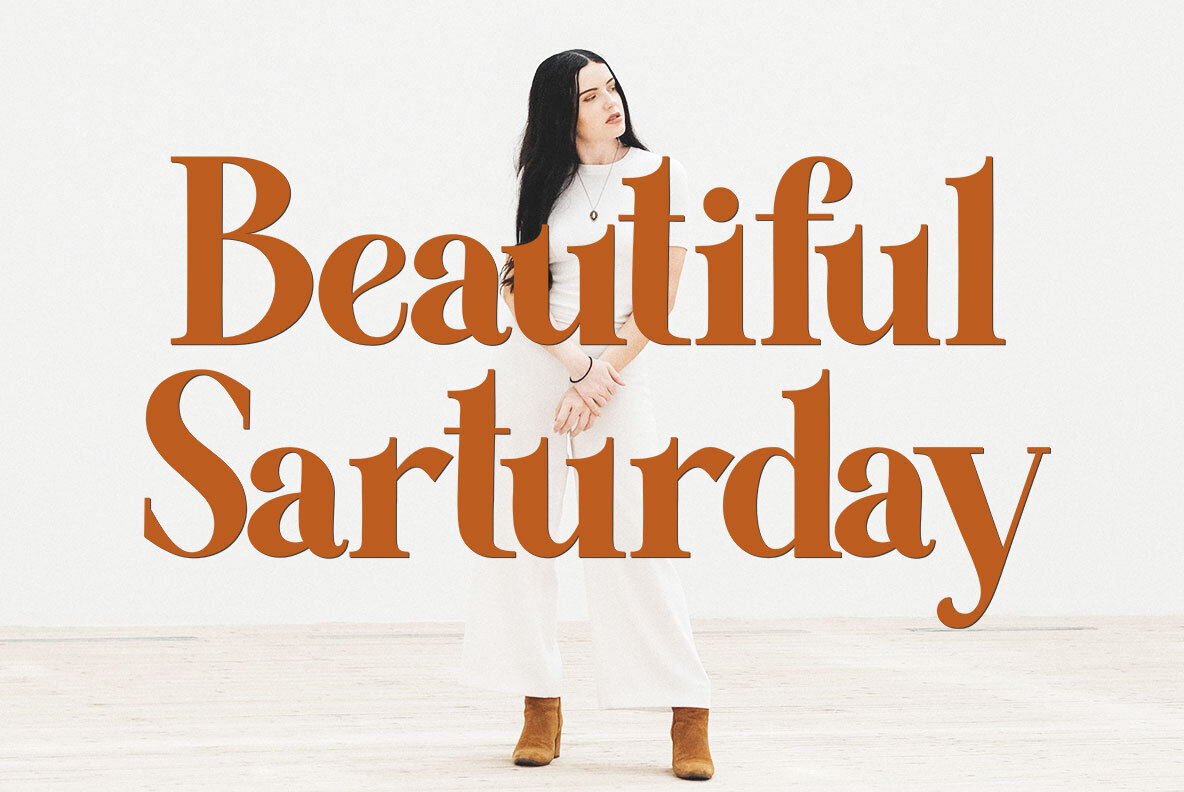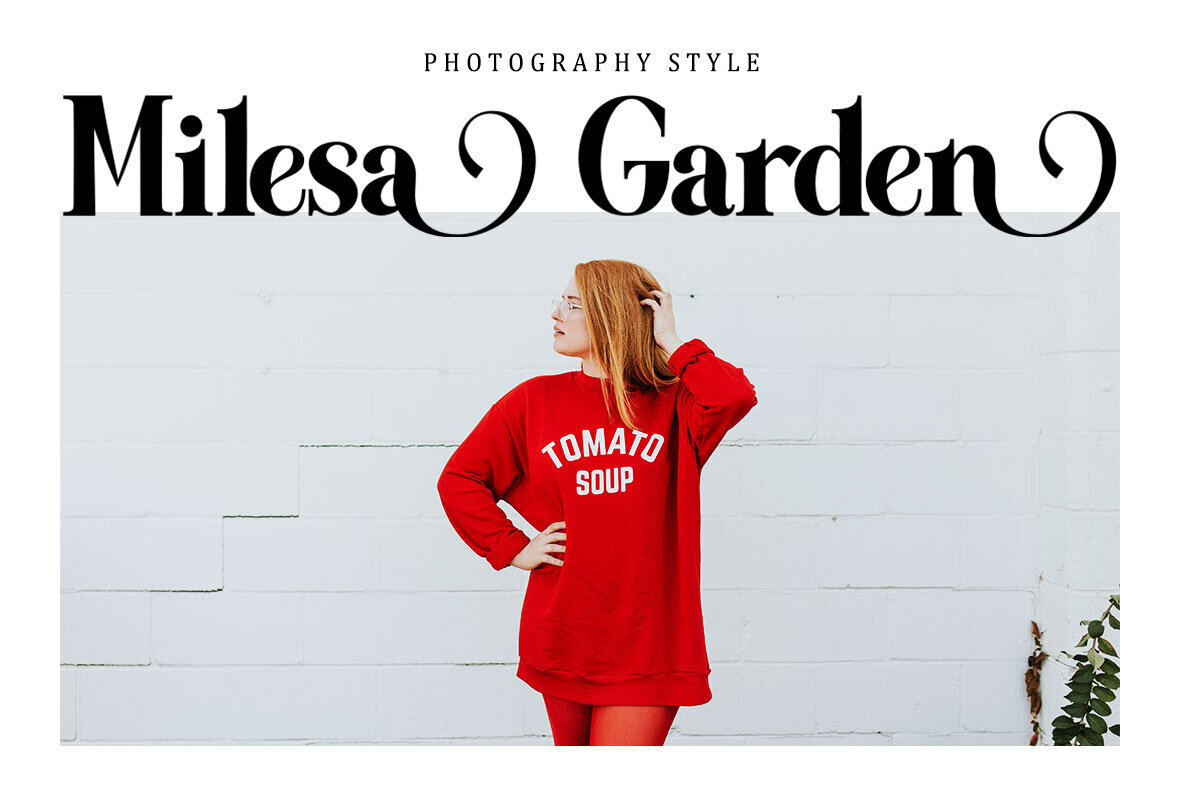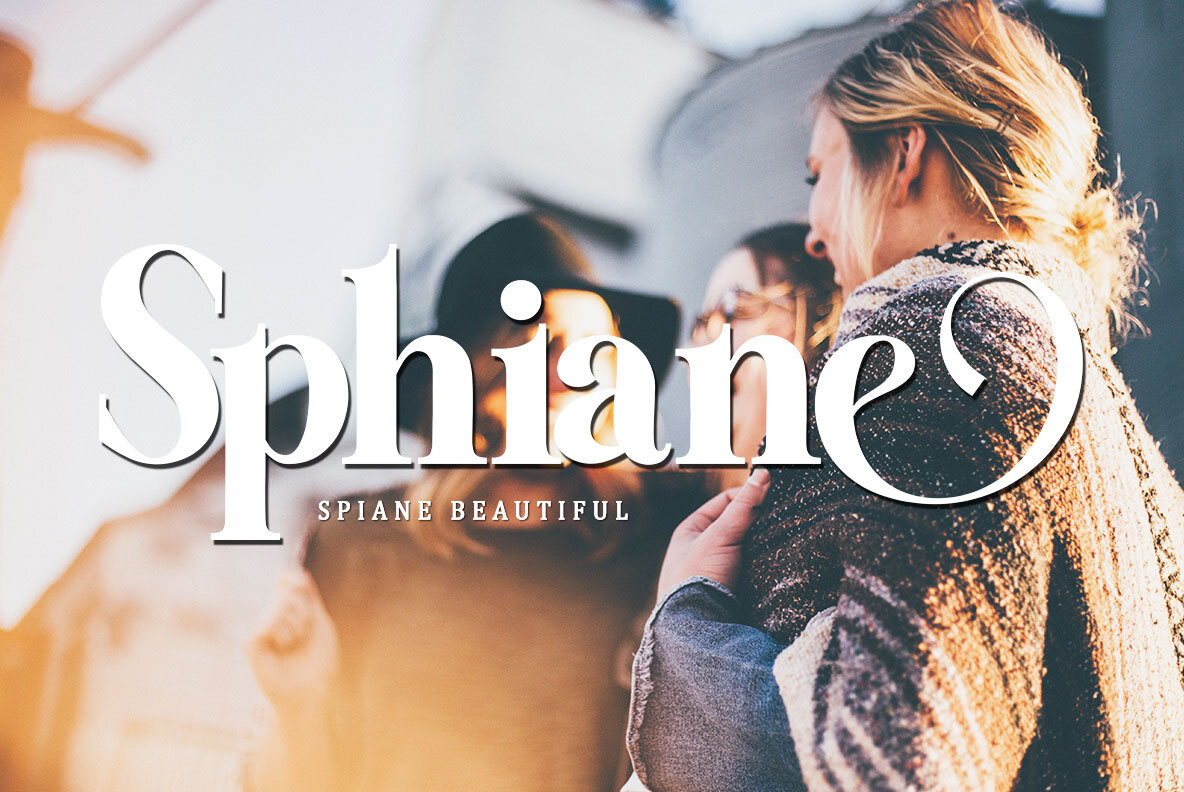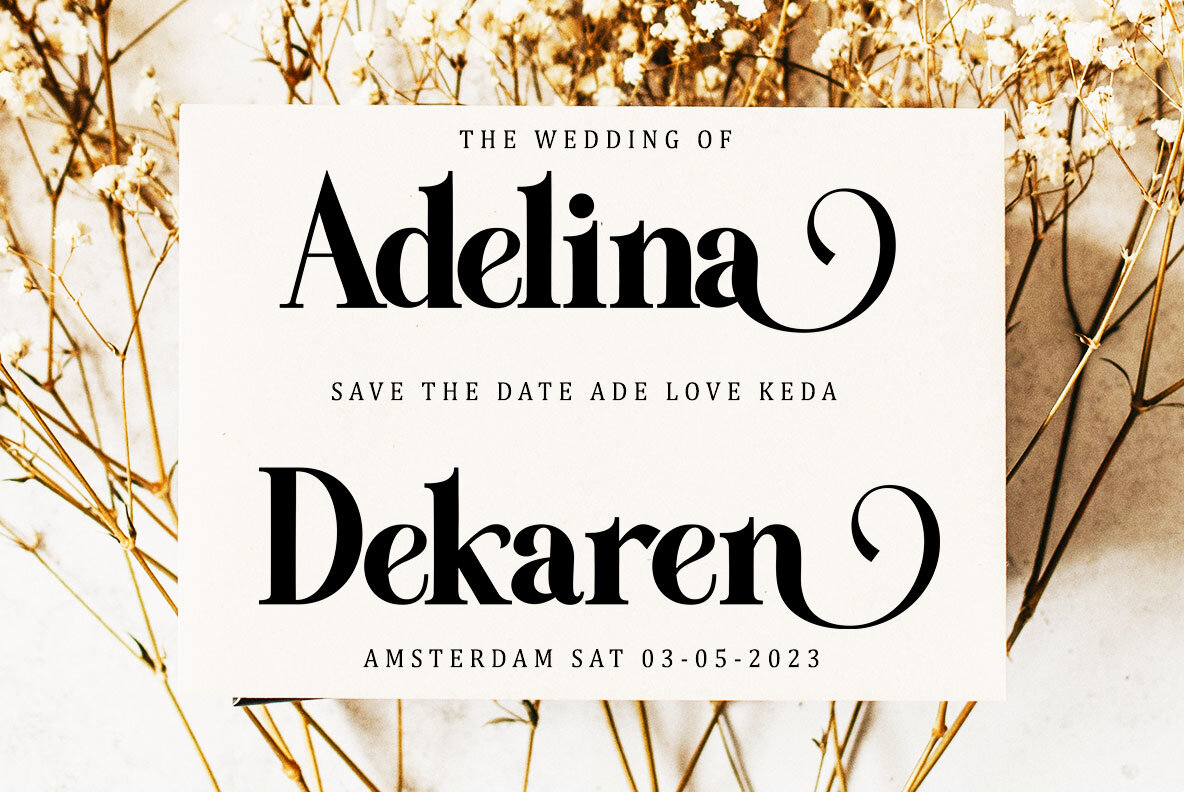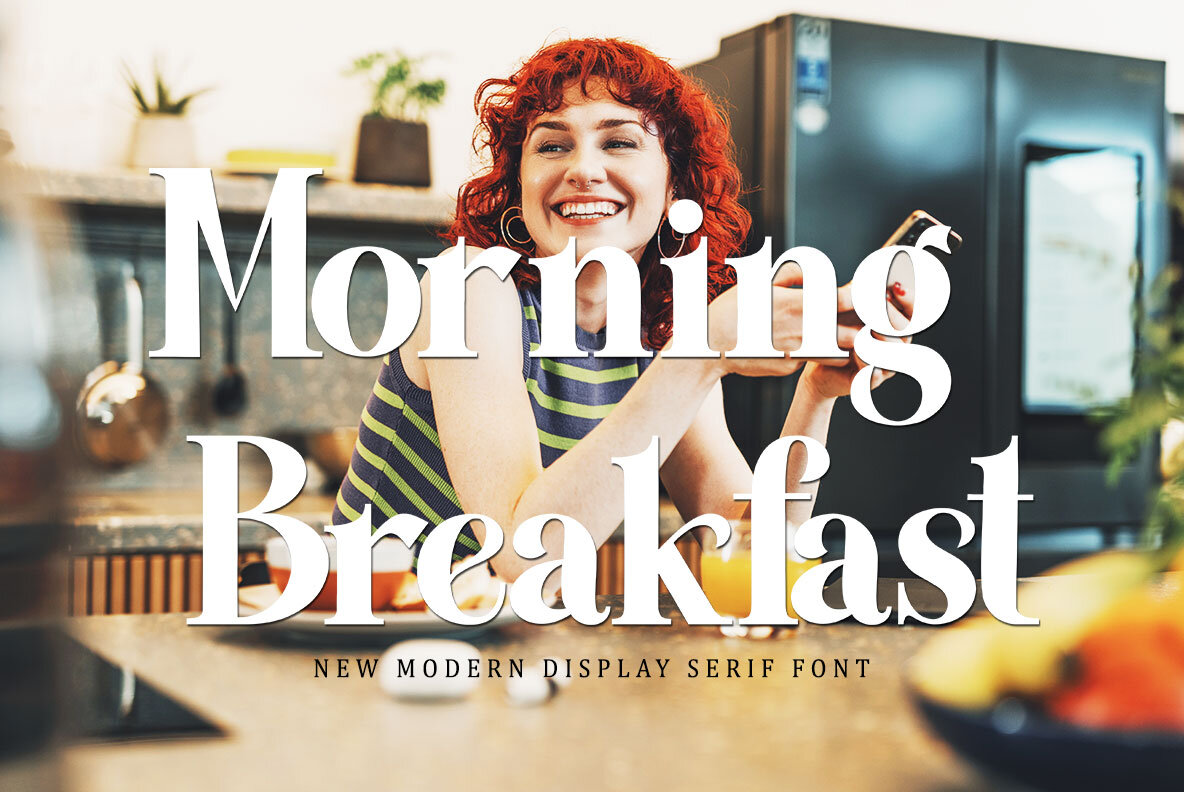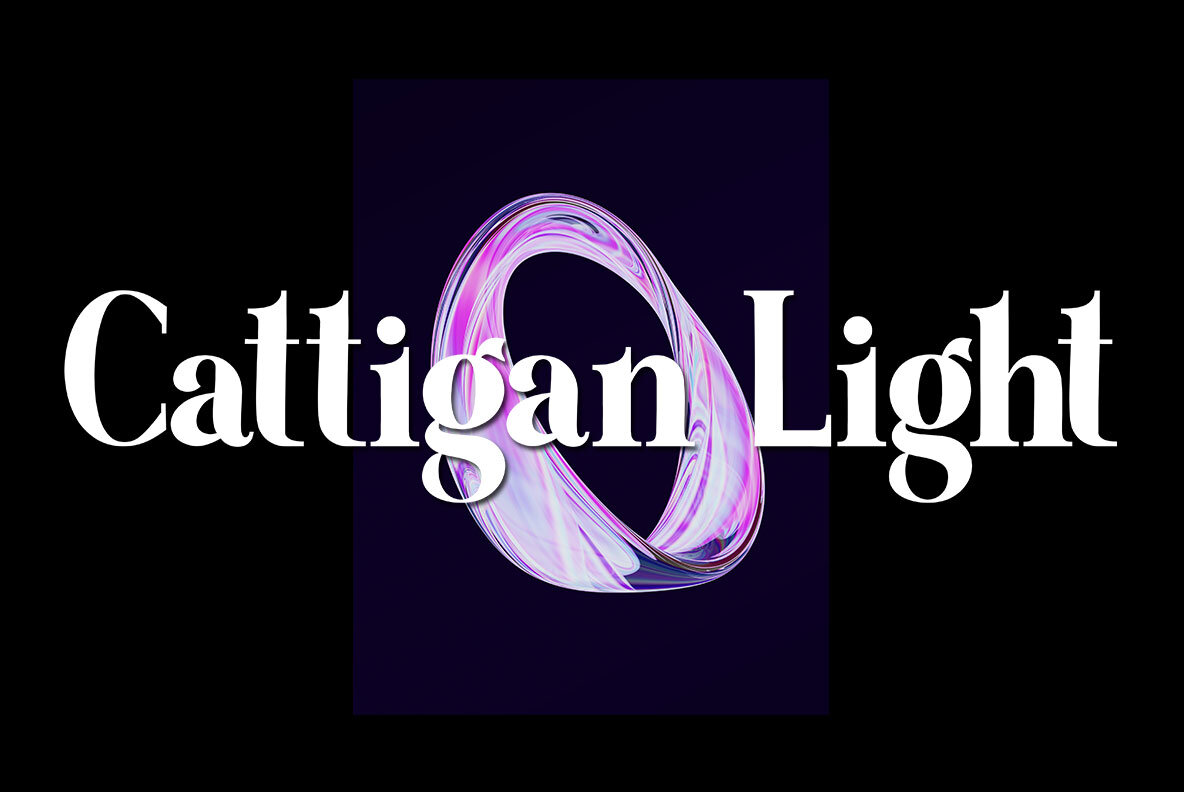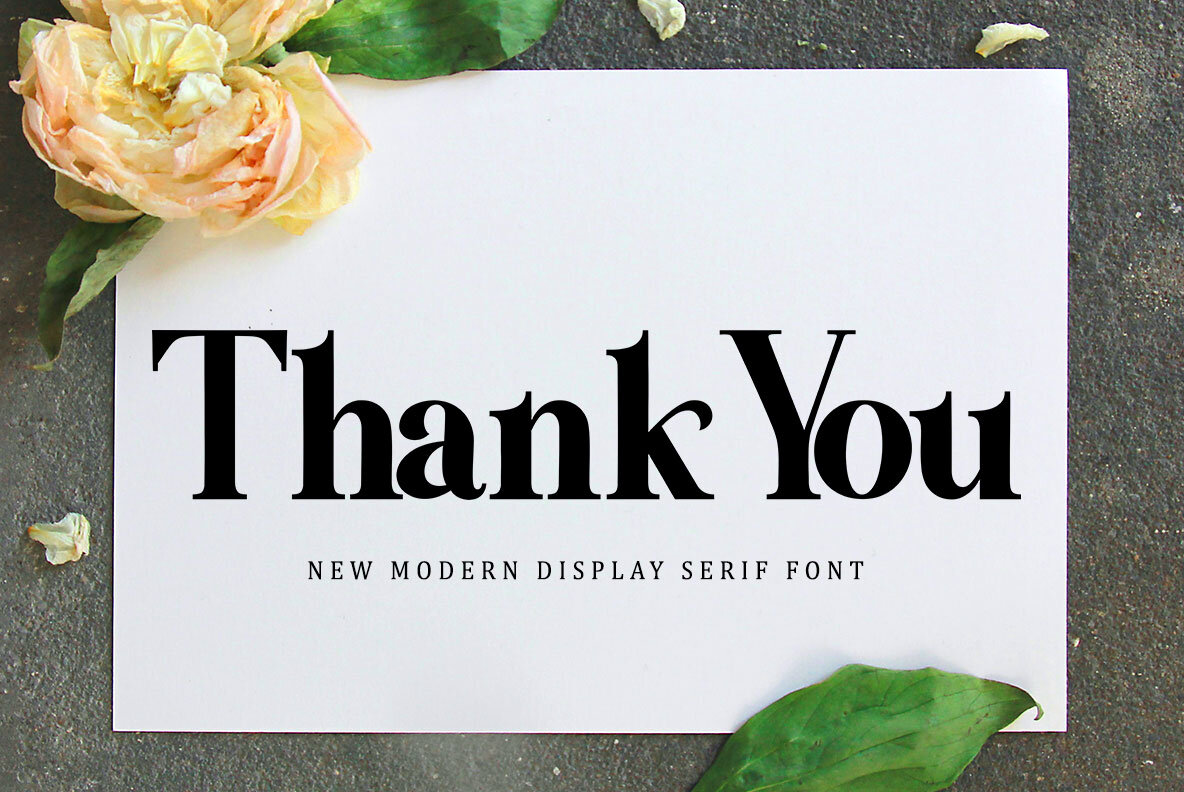
Bestline: An Elegant Serif for Luxurious Designs
Bestline by Master Type is an elegant serif font that brings a touch of luxury and style to your projects. Ideal for logotypes, branding, monograms, wedding invitations, and blog headlines, this font adds sophistication to any design.